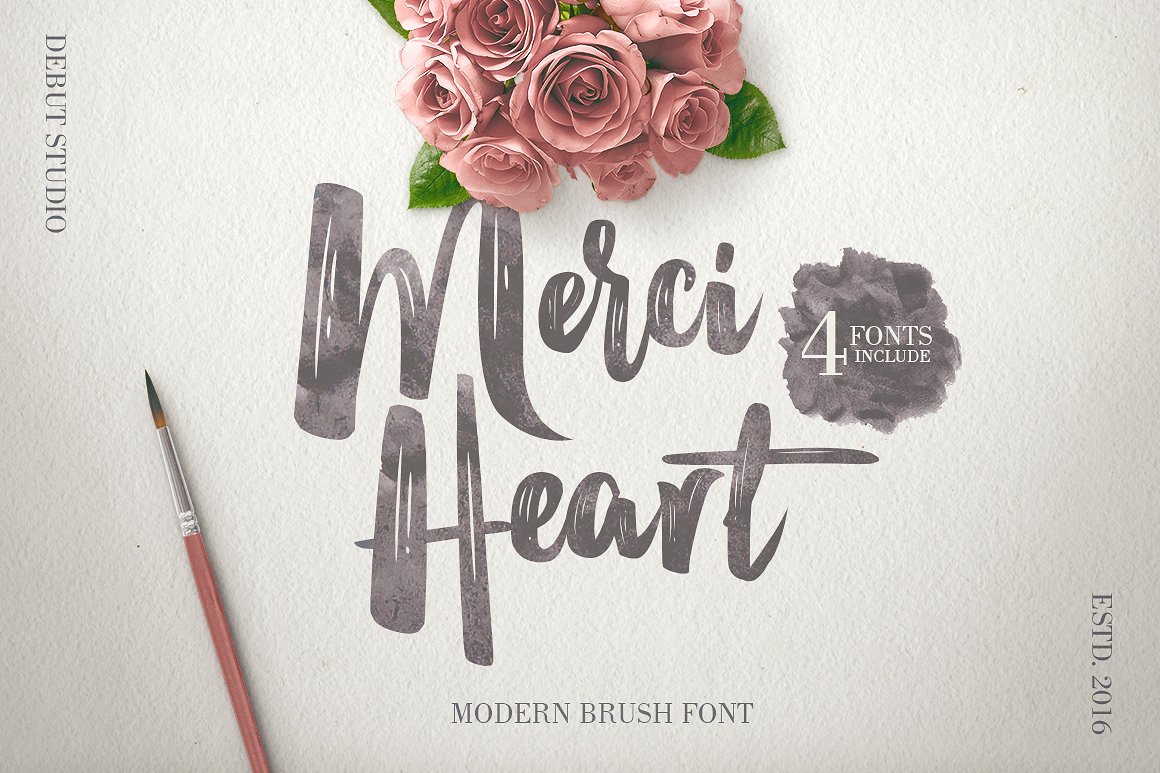
Merci Heart Script
Merci Heart Script Font
Debut Studio presents the latest font Merci Heart Brush Font This font is built to meet your needs, whereas designers who use a natural brush font, then you must have this font. Merci Heart Brush Font is perfect for design purposes such as title title, magazine, newspaper, website, to design quotations, posters, business cards, and others.